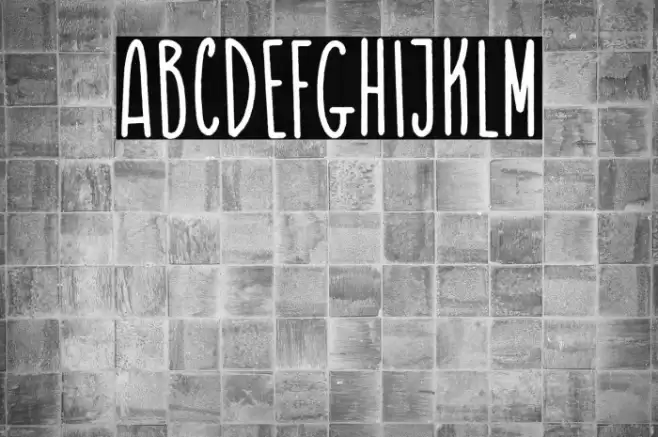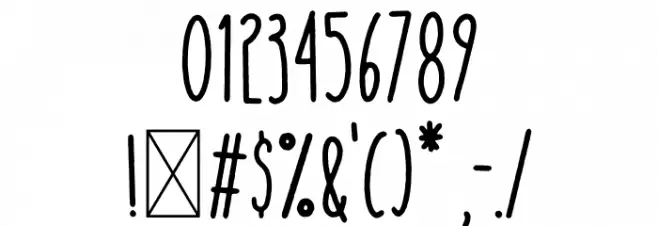
The Winter Soldier Font
The Winter Soldier Description
This font features tall, narrow characters with a hand-drawn aesthetic, giving it a casual yet stylish appearance. The uppercase letters are uniform in height, while the lowercase letters maintain a consistent baseline with slight variations in height, adding a playful touch. The numbers are similarly narrow, complementing the overall design. Special characters are included, maintaining the same hand-drawn style, which enhances the font's versatility. The strokes are consistent in thickness, providing a balanced look that is easy to read. This font is ideal for projects that require a personal, approachable feel while maintaining clarity and style.
A tall, narrow, hand-drawn font with a casual and stylish appearance from Uncategorized fonts.
- Font: The Winter Soldier
- Proposed Projects: Ideal for greeting cards, posters, social media graphics, and branding projects that require a personal touch.
- Overall Style: Casual